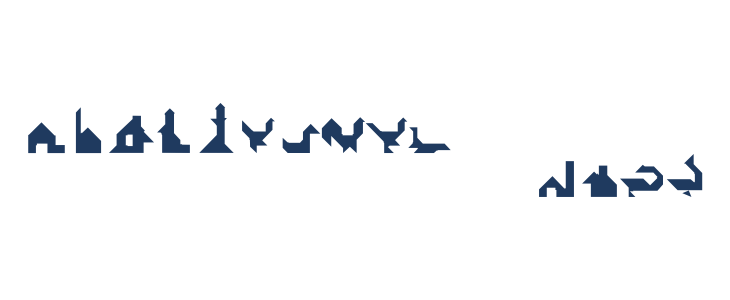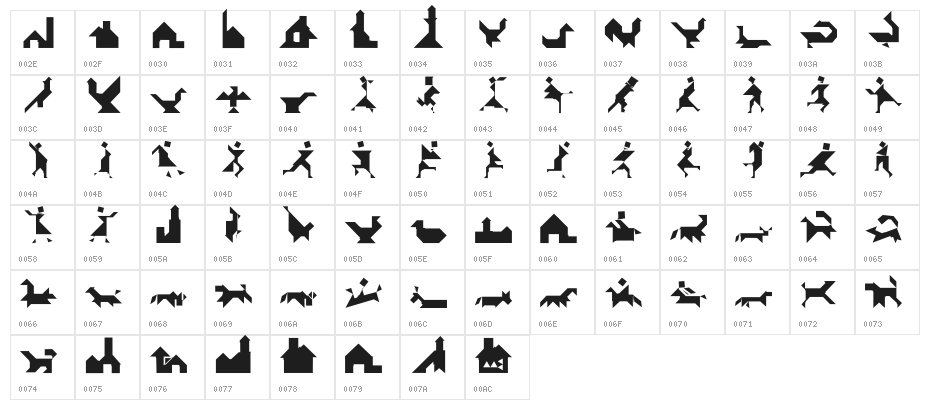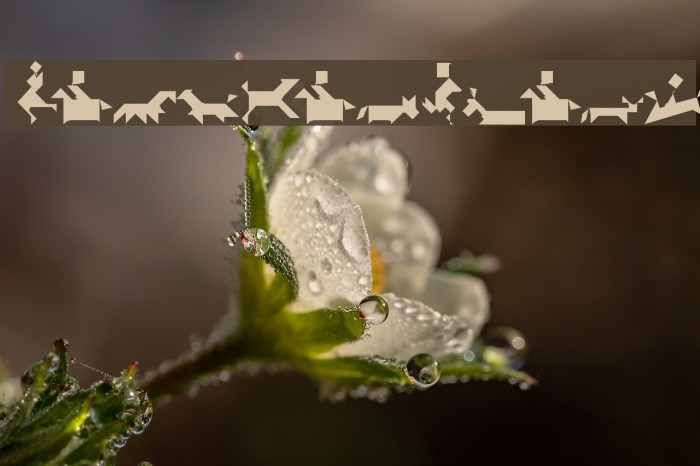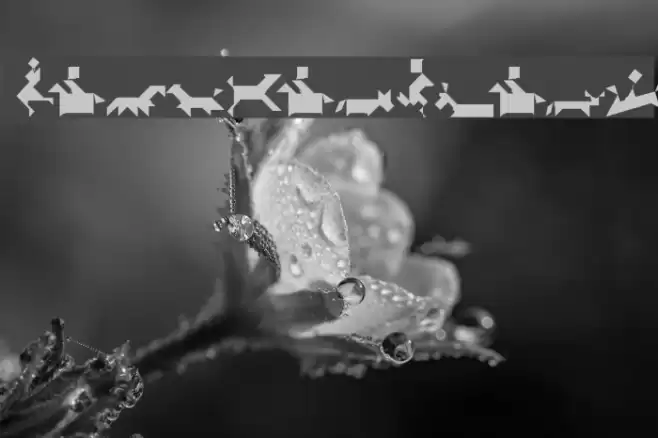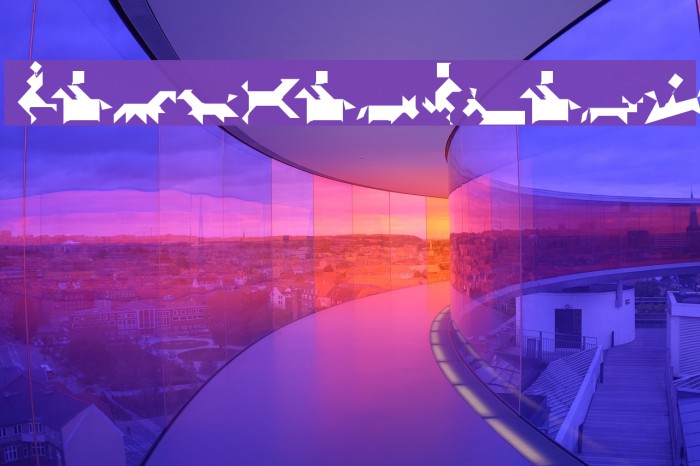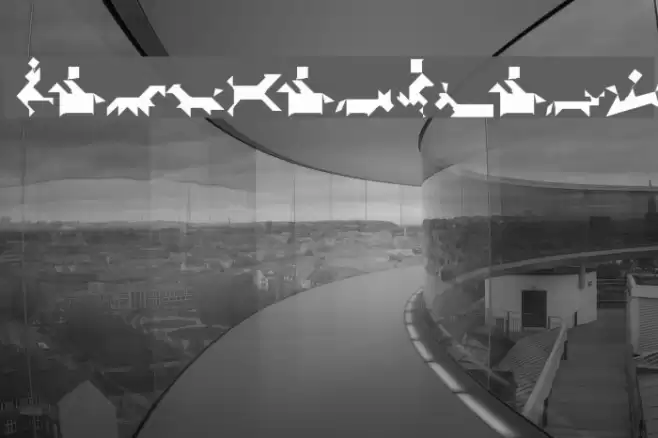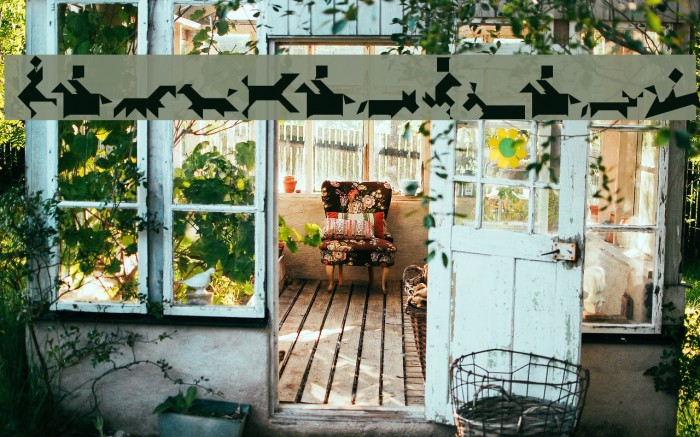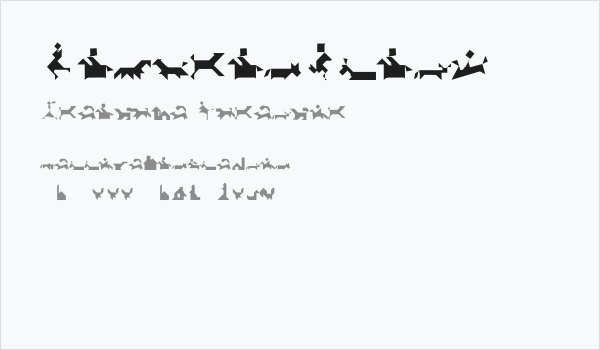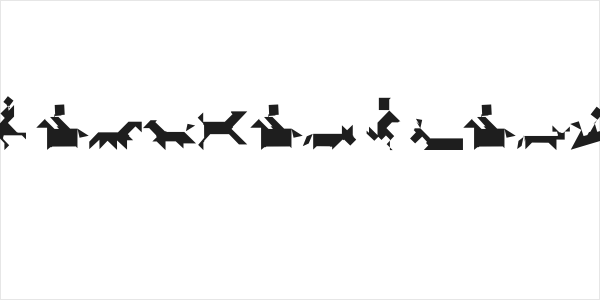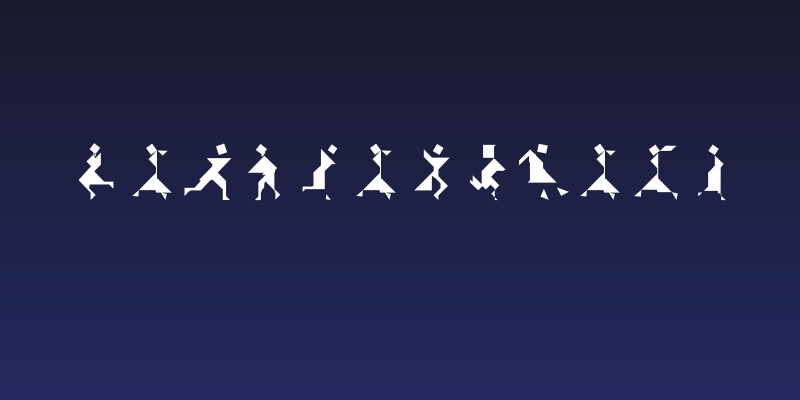
TangramBlack Font
TangramBlack Description
This font is a highly creative and abstract representation of characters, inspired by the traditional Chinese tangram puzzle. Each letter is constructed using geometric shapes, primarily triangles and parallelograms, to form stylized human figures and objects. The design is bold and striking, with a strong emphasis on angularity and symmetry. The characters are not immediately recognizable as traditional letters, offering a unique visual experience that challenges conventional typography. This font is ideal for projects that require a distinct and artistic touch, making it suitable for creative industries and artistic endeavors.
| Use Case | Logos, Posters, Artistic Displays |
| Proposed Projects | Ideal for artistic projects, creative branding, unique posters, and experimental design work. |